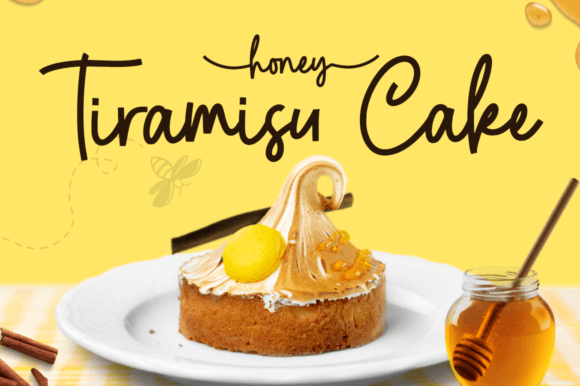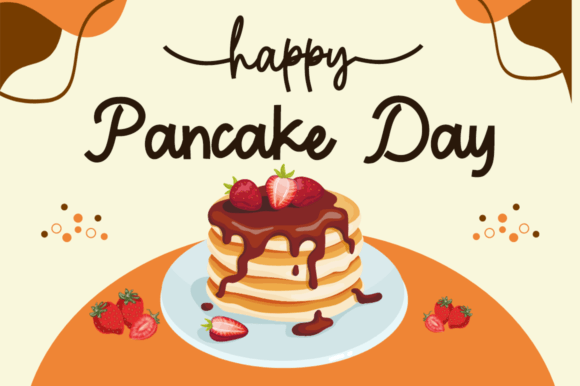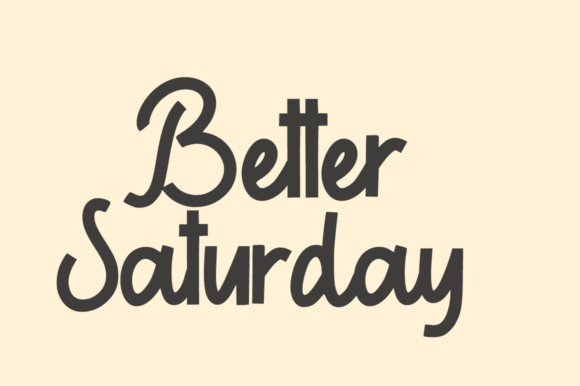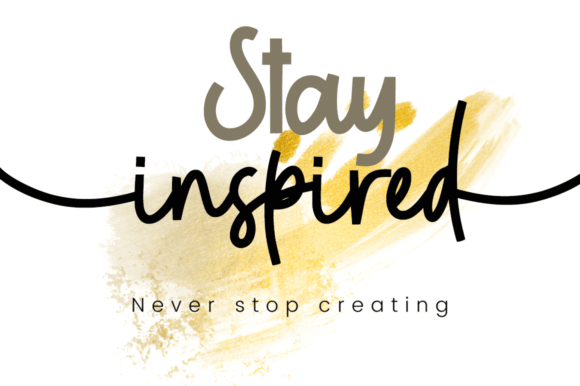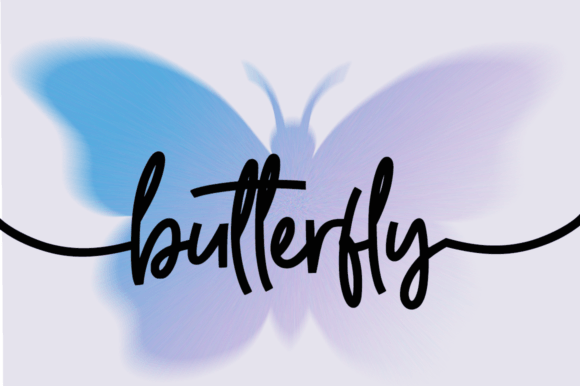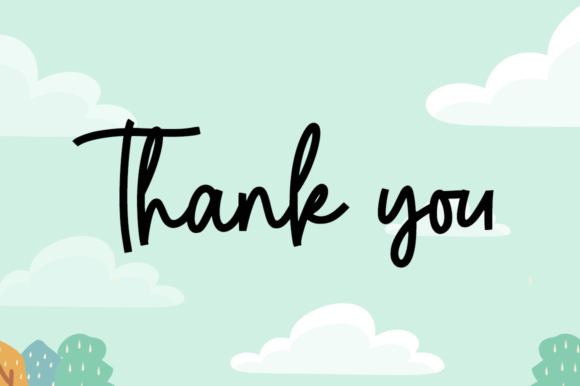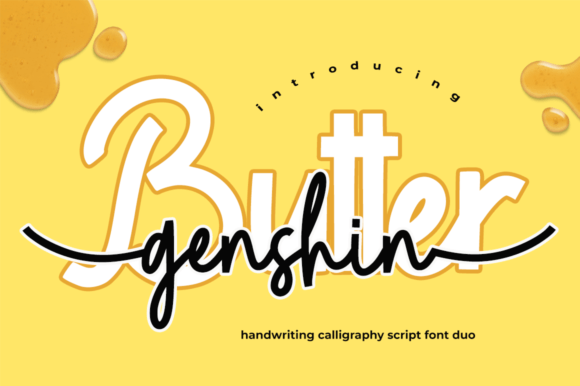
Unleash Creativity with Better Genshin Font: A Modern Handwritten Duo
Are you tired of using the same old fonts in your designs? Look no further than Better Genshin, a striking duo of modern handwritten fonts that will elevate your creative projects to the next level. This minimalist yet eye-catching font combination harmoniously blends script and display styles, making it perfect for designers and crafters seeking a unique and charismatic look.
The Perfect Blend of Elegance and Edge
Better Genshin is a carefully crafted font duo that boasts elegant and well-proportioned characters, seamlessly gelling with diverse design aesthetics. Its modern handwritten style is both edgy and graceful, making it an ideal choice for charismatic logos, memorable brands, and stirring quotes. Whether you’re working on a personal project or a client’s design, Better Genshin is sure to impress.
Key Features of Better Genshin Font
- Modern Handwritten Style: Better Genshin’s unique font style is perfect for designers seeking a fresh and contemporary look.
- PUA Encoding: With PUA encoding, accessing Better Genshin’s exciting array of glyphs and ligatures is easy and convenient.
- Script and Display Styles: This font duo harmoniously blends script and display styles, making it versatile and adaptable to various design needs.
- Elegant and Well-Proportioned Characters: Better Genshin’s characters are carefully crafted to ensure a perfect balance of elegance and readability.
Better Genshin is more than just a font – it’s a design tool that unlocks endless creative possibilities. With its unique style and versatile characters, you can:
- Create charismatic logos that capture the essence of your brand.
- Design memorable brands that stand out from the crowd.
- Craft stirring quotes that inspire and motivate.
- Develop cohesive brand identities that reflect your values and mission.
Why Choose Better Genshin Font?
In a world where design trends are constantly evolving, Better Genshin font stands out as a timeless and versatile choice. Here are just a few reasons why designers and crafters love Better Genshin:
- Unique Style: Better Genshin’s modern handwritten style is unlike any other font on the market.
- Ease of Use: With PUA encoding, you can easily access and use Better Genshin’s glyphs and ligatures.
- High-Quality Design: Better Genshin’s elegant and well-proportioned characters ensure a professional finish for any design project.
Refresh Your Designs with Better Genshin
If you’re looking to refresh your designs and inject new life into your creative projects, Better Genshin font is the perfect choice. Its edgy yet graceful style is sure to captivate your audience and leave a lasting impression. So why wait? Unleash your most inventive concepts with Better Genshin and watch as it breathes life into them.
Better Genshin font is a game-changer for designers and crafters seeking a unique and charismatic look. With its modern handwritten style, PUA encoding, and elegant characters, this font duo is perfect for a wide range of design applications. Whether you’re working on a personal project or a client’s design, Better Genshin is sure to impress. So why not give it a try and experience the power of Better Genshin for yourself?